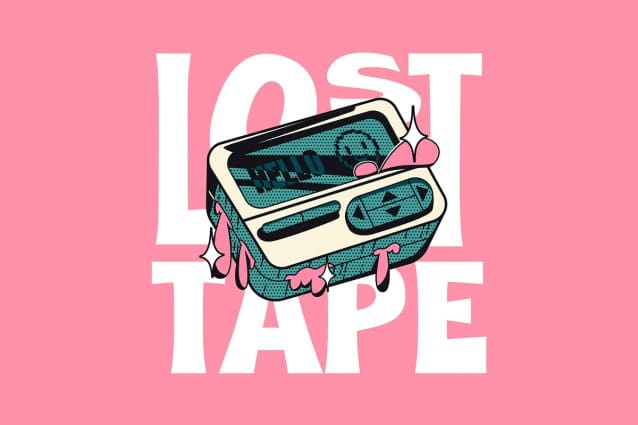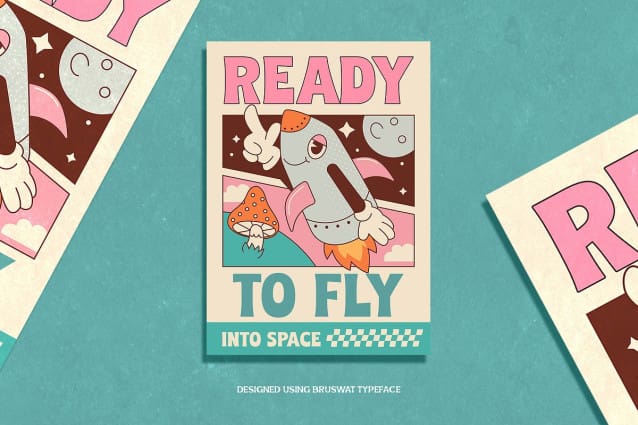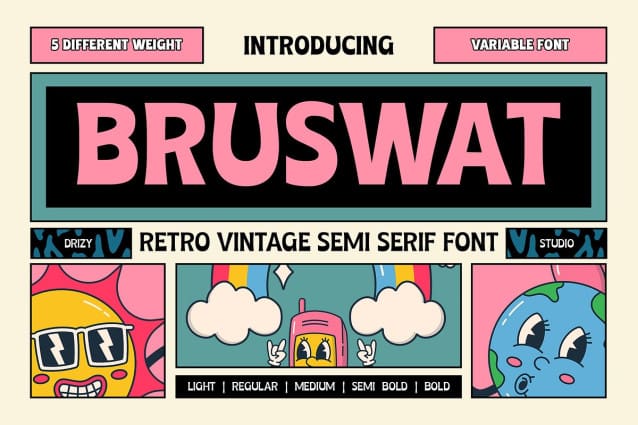
Bruswat Font
Bruswat Font, the Retro Vintage Font – a timeless, evocative typeface that transports you back to the golden era of design. With its authentic, nostalgic charm, this font captures the essence of the 60s and 70s, making it perfect for your retro-inspired projects.